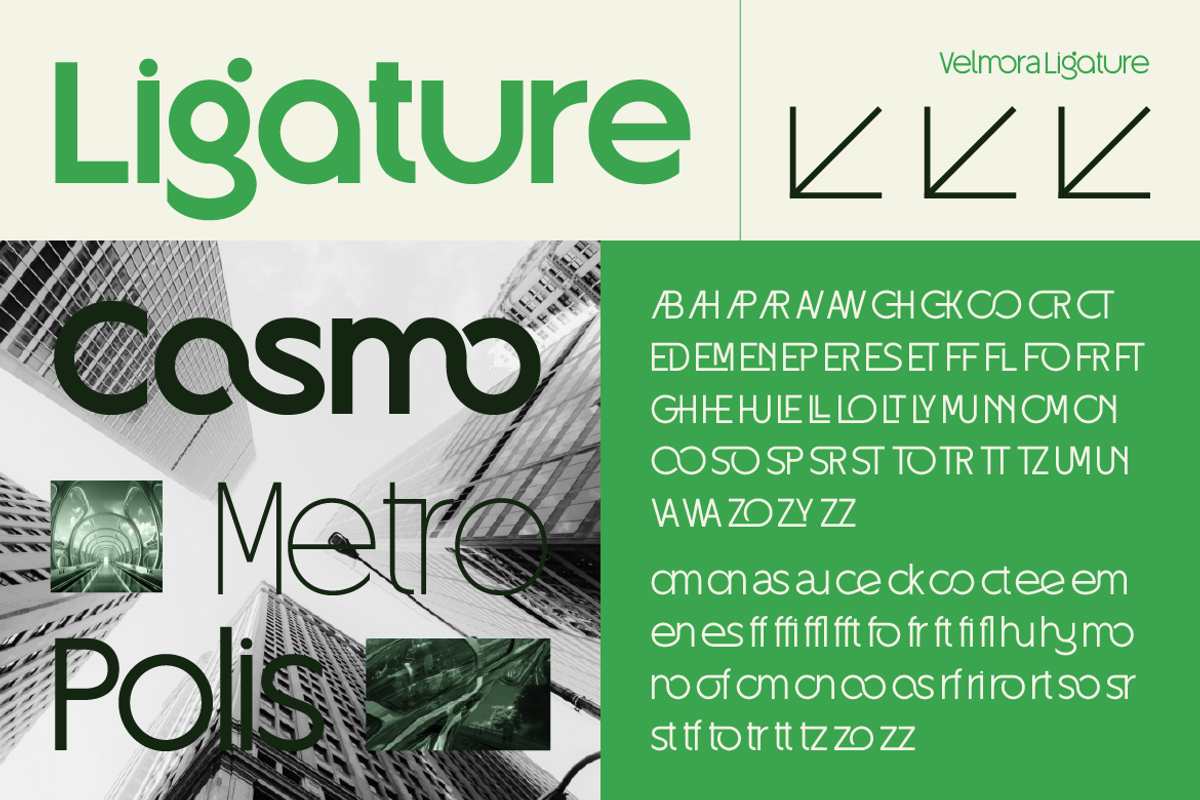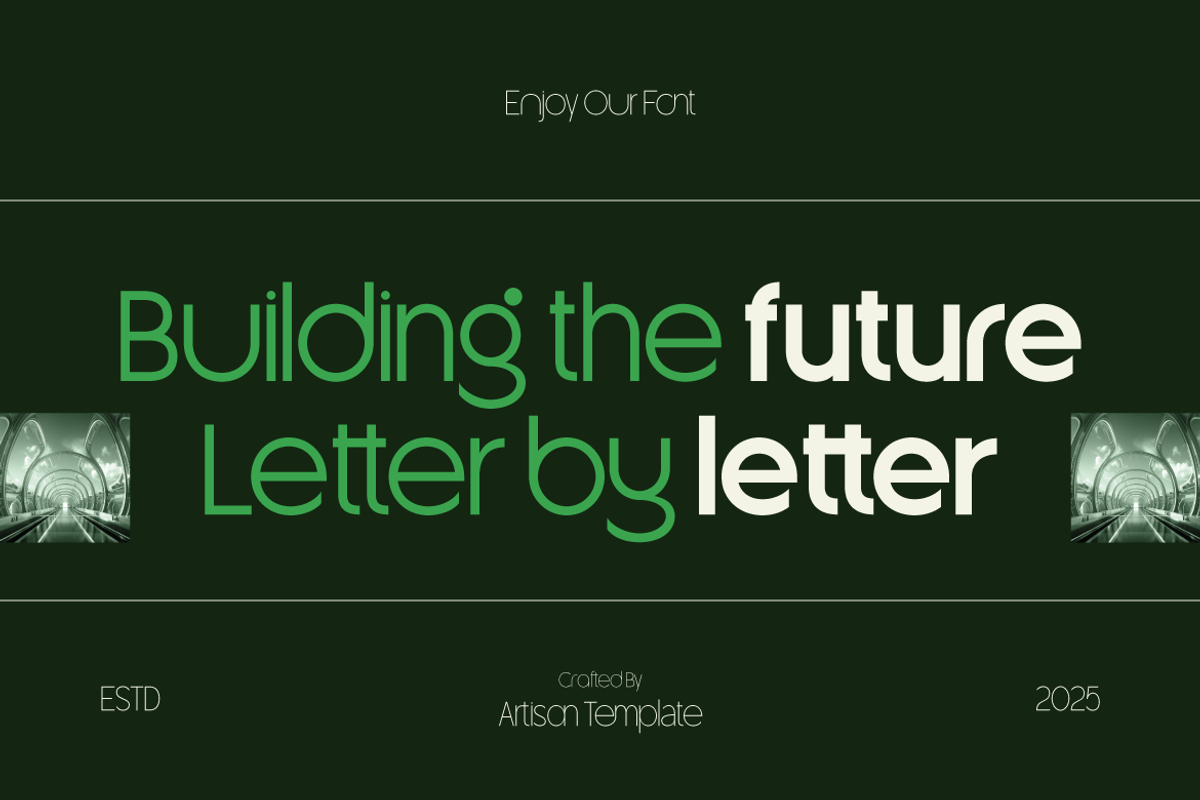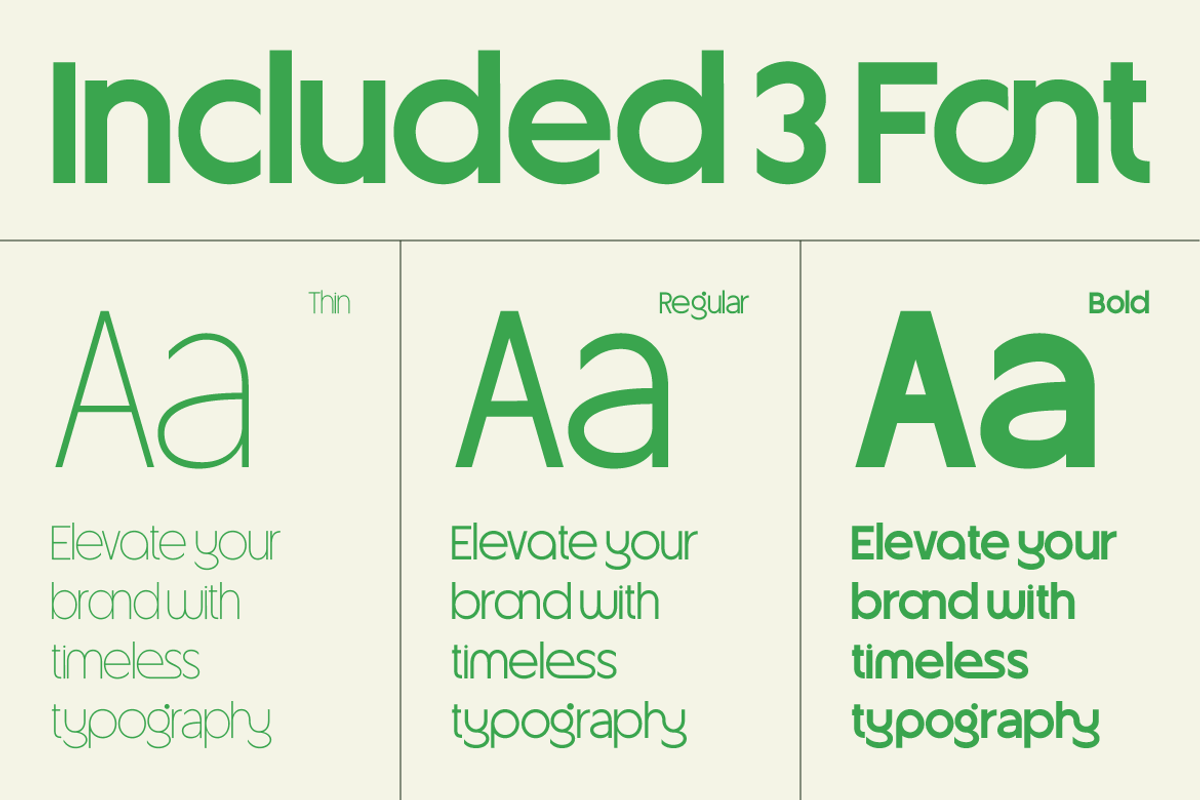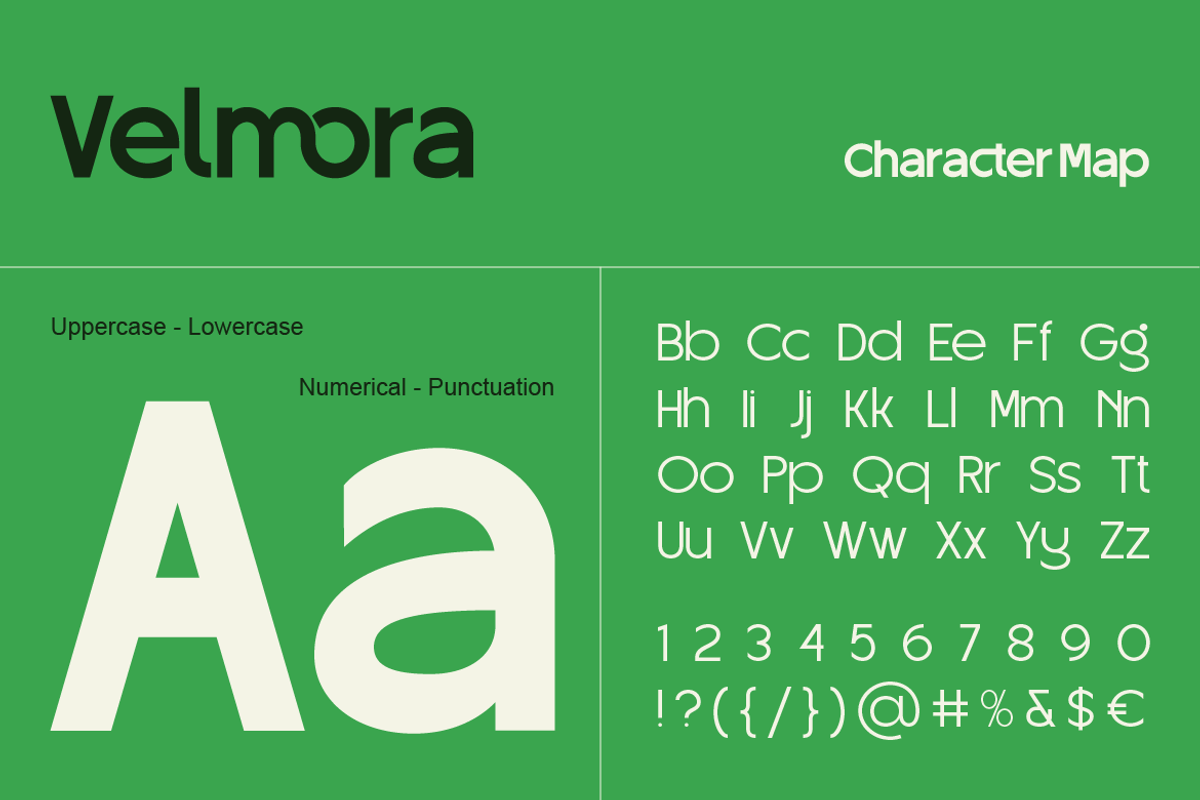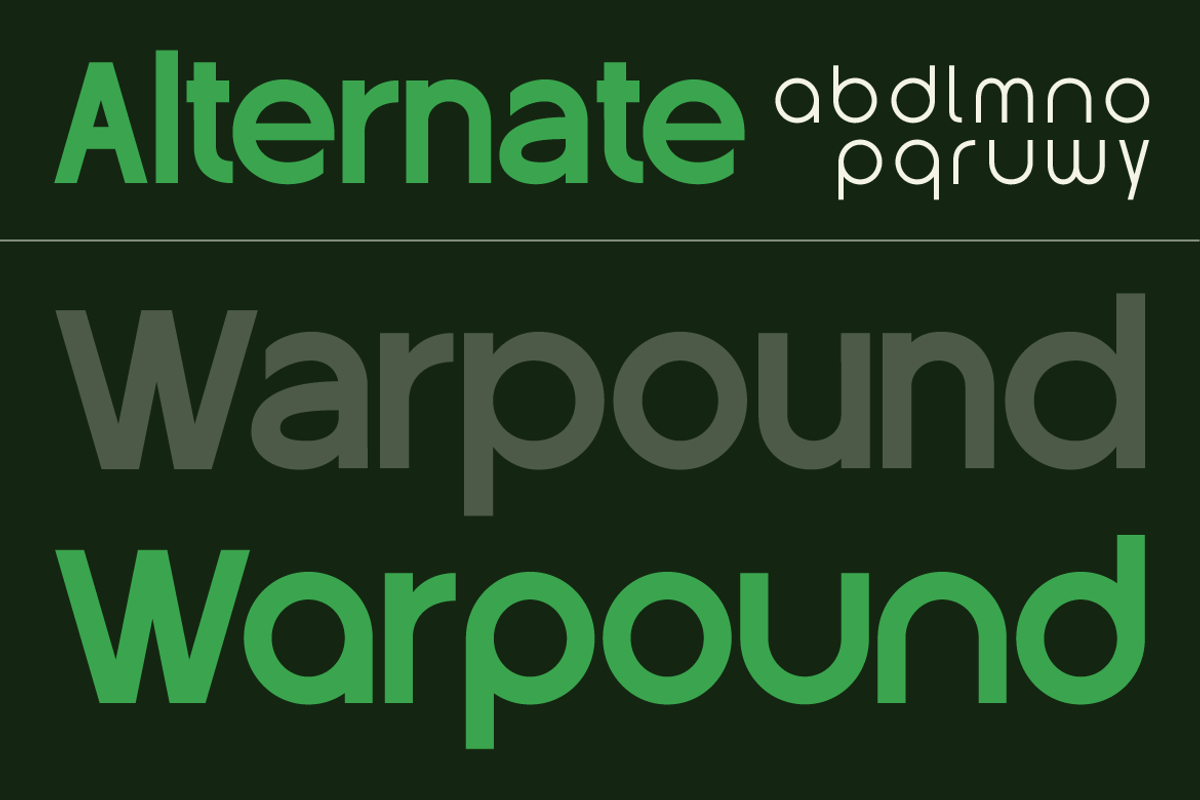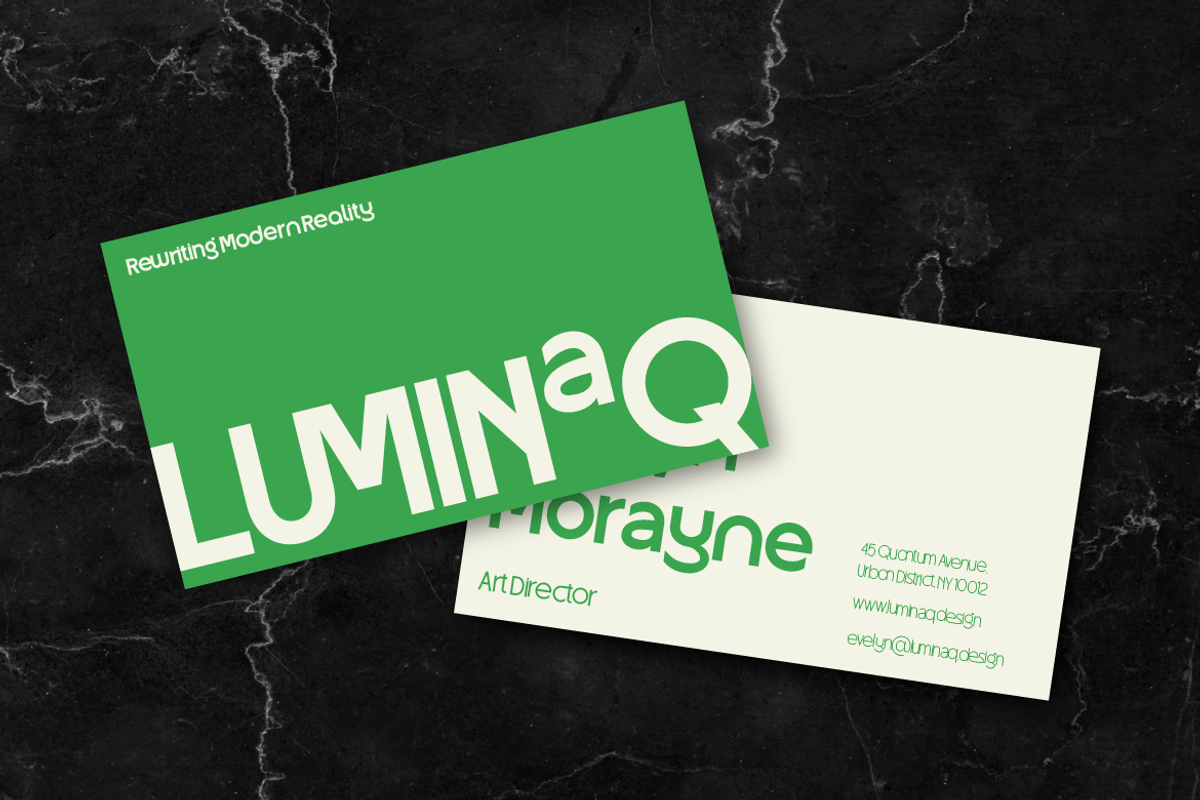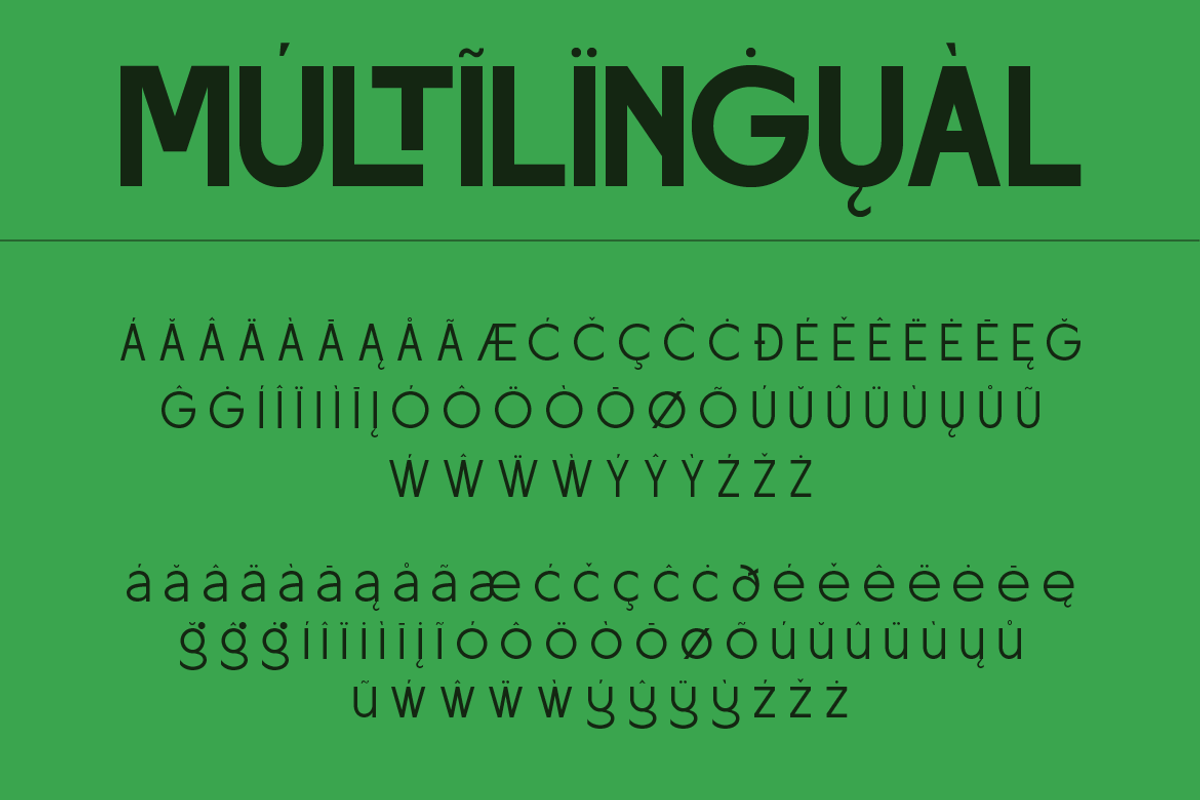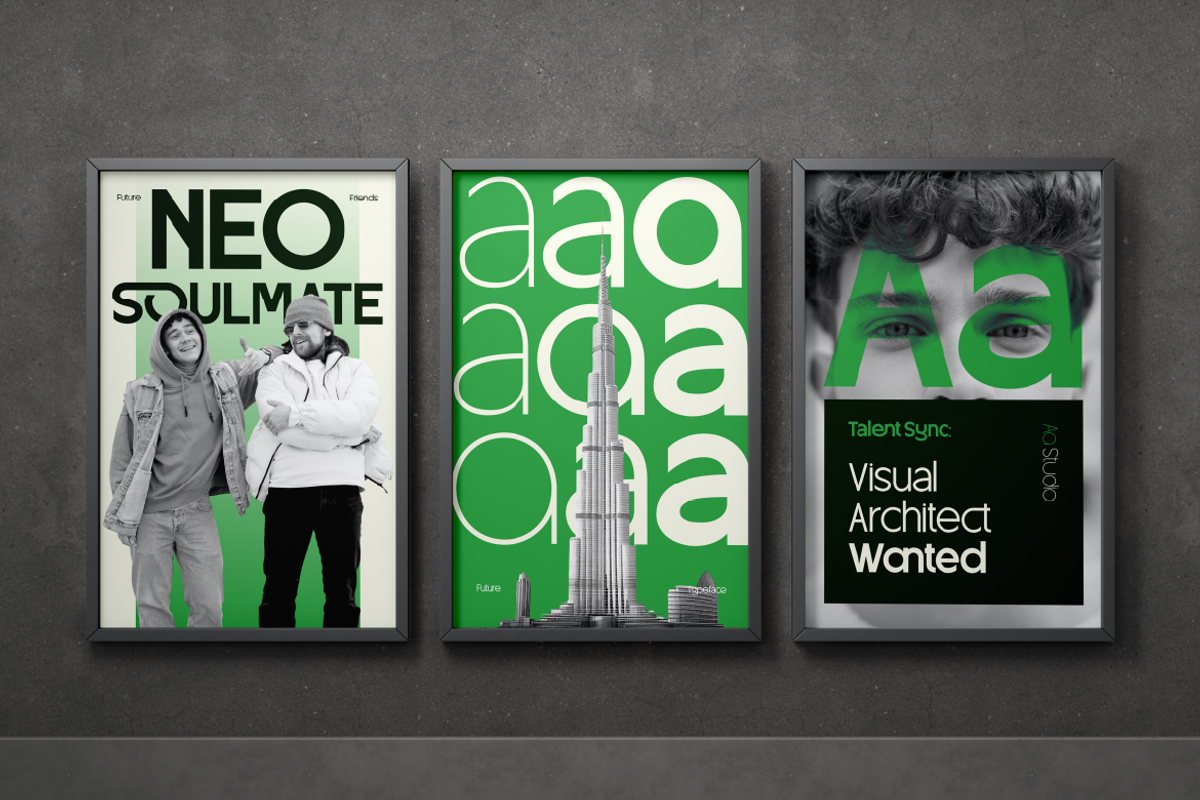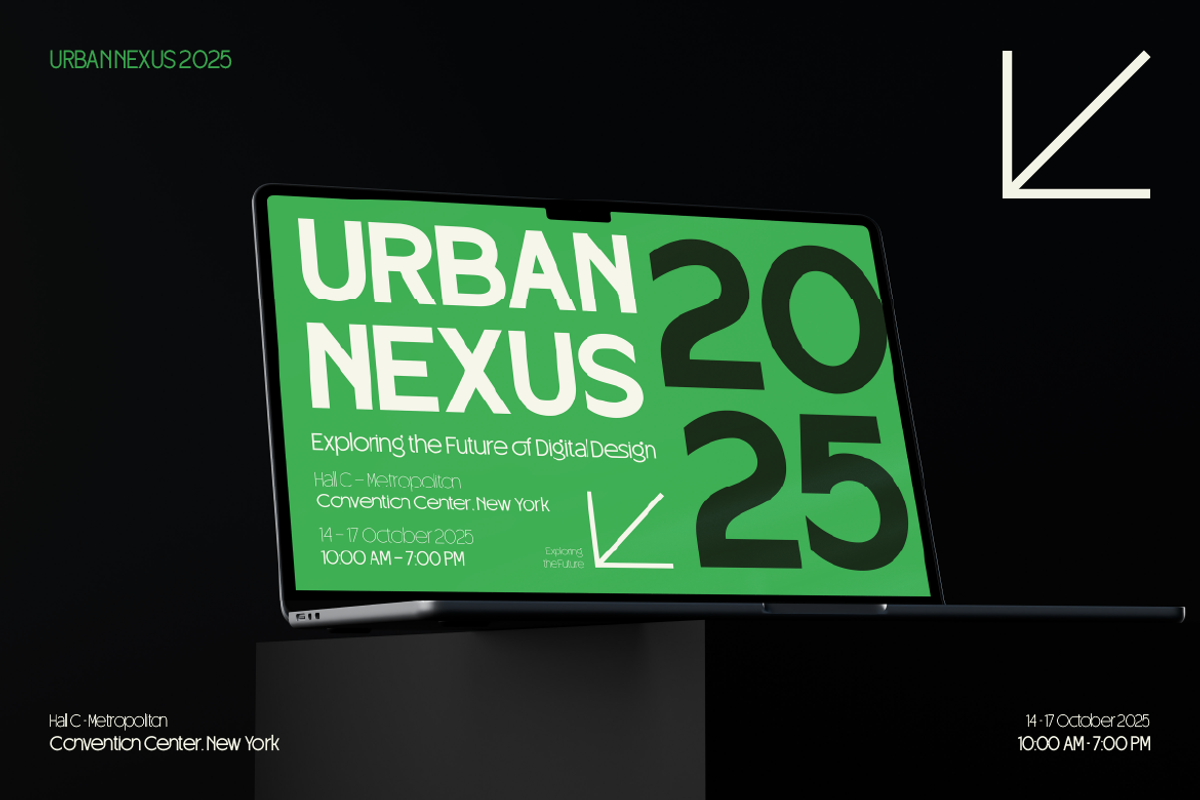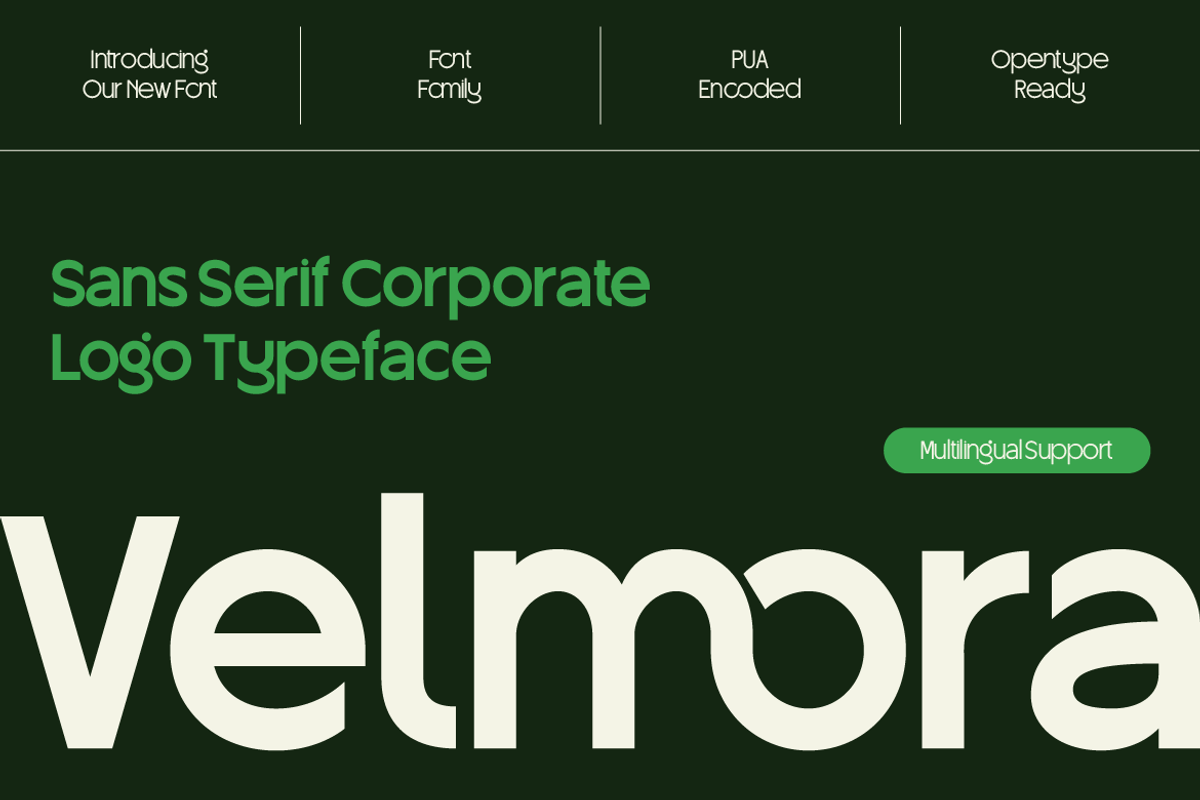
Velmora - Sans Serif Corporate Font
Meet Velmora – a modern sans serif typeface designed for branding that speaks confidence and clarity. With smooth curves, clean lines, and a timeless geometric touch, Velmora gives your design a professional yet approachable vibe.
Perfect for logos, corporate identity, websites, business cards, and even social media graphics, this font brings out that balance of modern elegance and trustworthiness. Velmora comes with 3 styles (Thin, Regular, Bold), making it super versatile for headlines, body text, and impactful statements. It’s PUA encoded and multilingual-ready, so you can easily use it in any creative project without hassle.
If you’re looking for a typeface that elevates your brand with a sleek and timeless personality, Velmora is the one.